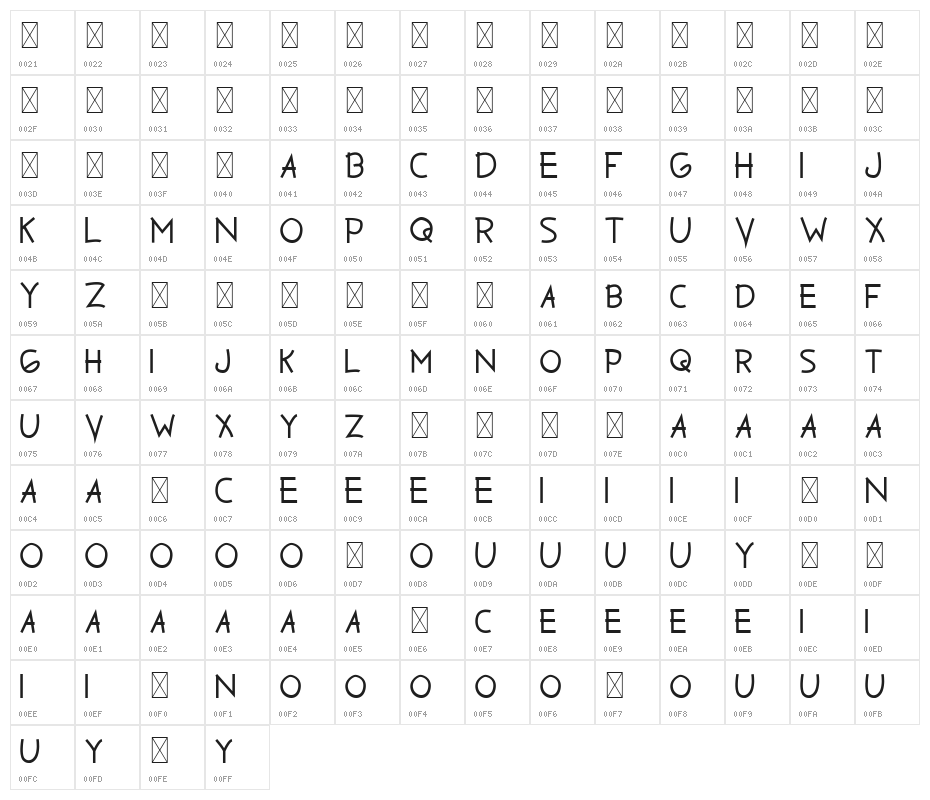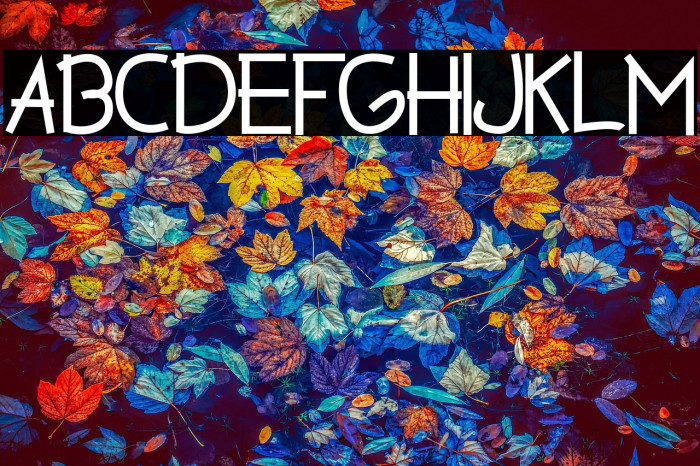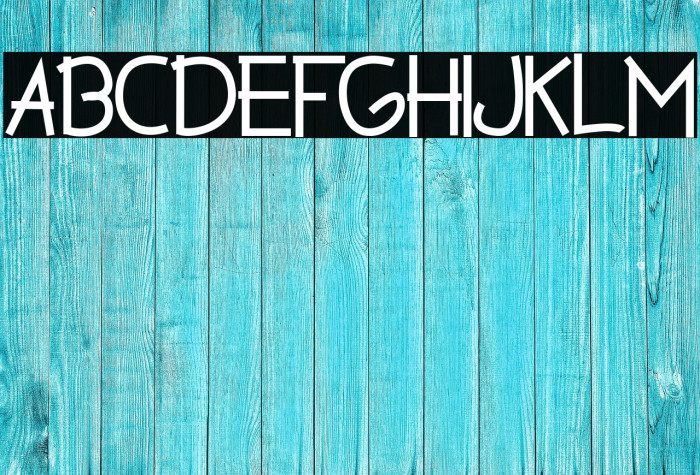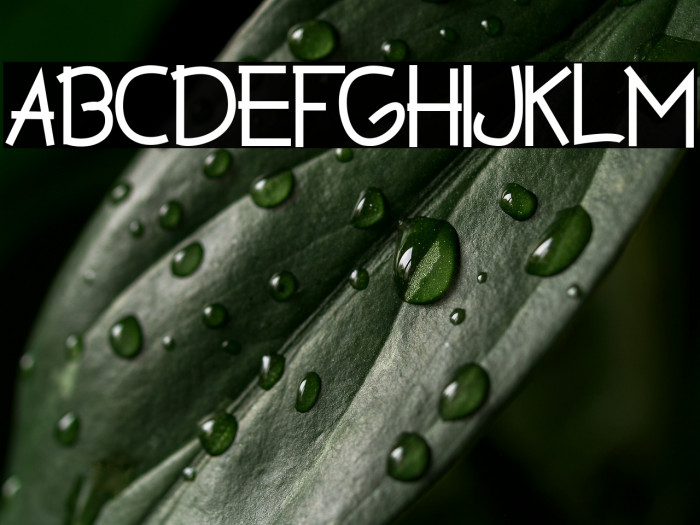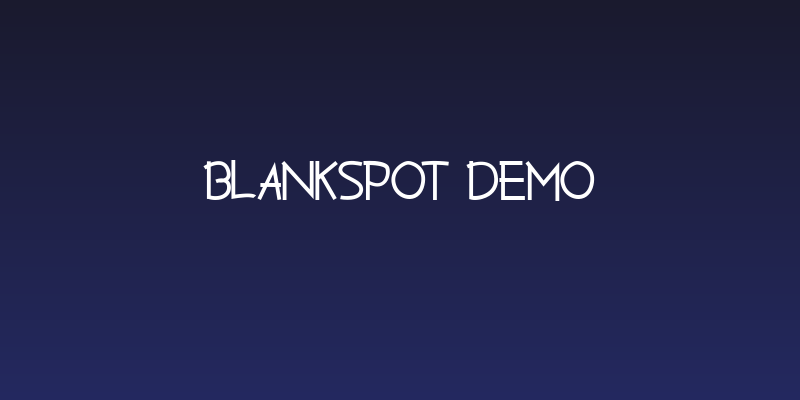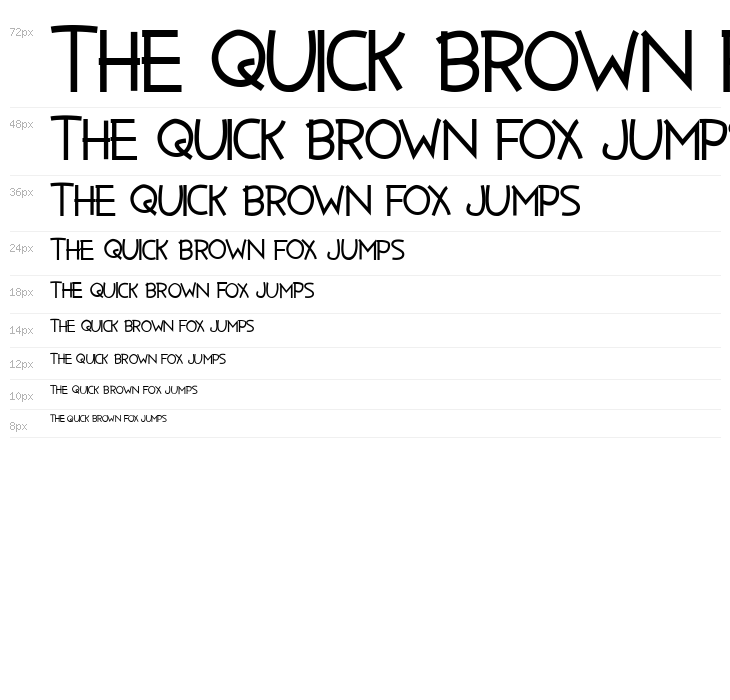
Blankspot Demo Font
Blankspot Demo Description
This font features a unique and artistic style with a hand-drawn appearance. The uppercase letters are characterized by sharp angles and a slightly irregular form, giving them a dynamic and playful look. The strokes are consistent in width, contributing to a balanced and cohesive design. The absence of lowercase letters and numerals suggests a focus on decorative and display purposes. The overall aesthetic is modern with a hint of whimsy, making it suitable for creative projects that require a distinctive and eye-catching typeface.
| Overall Style | Modern, Artistic |
| Proposed Projects | Ideal for creative projects such as posters, album covers, and branding materials that require a unique and artistic touch. |